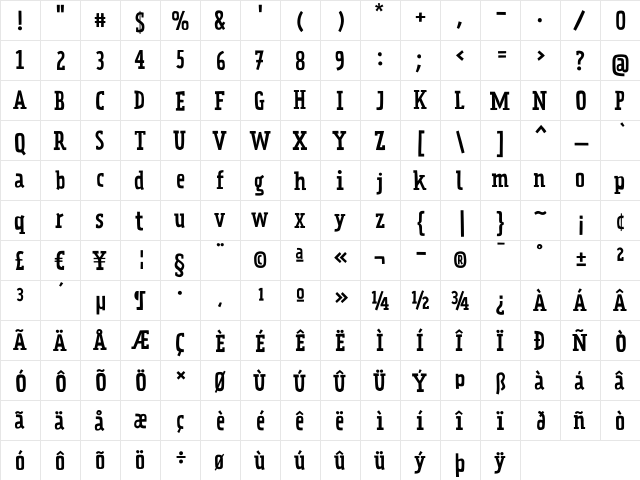
PraterSerifOne-Regular Regular
| Foundry | Steffen Sauerteig, Henning Wagenbreth, published by Fontshop International for the FontFont library |
Design Context for PraterSerifOne-Regular Typeface
PraterSerifOne-Regular carries the refined structure of traditional serif typography, with bracketed terminals and considered proportions that communicate credibility and craft.